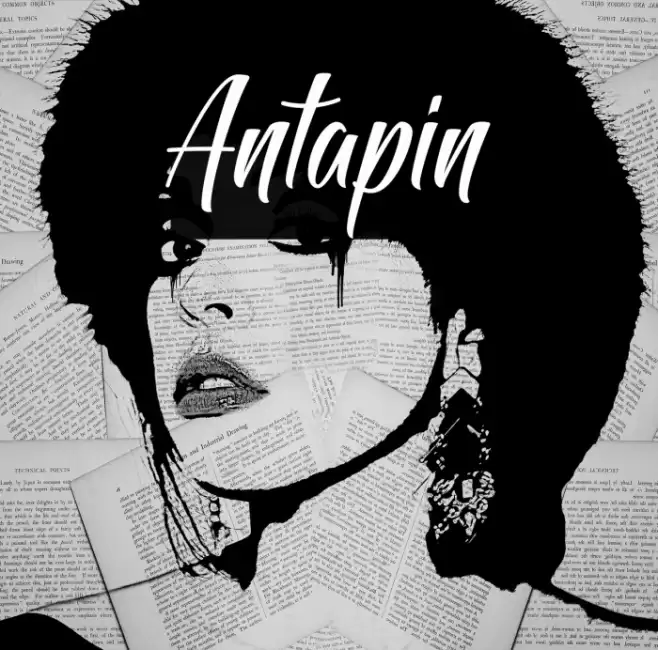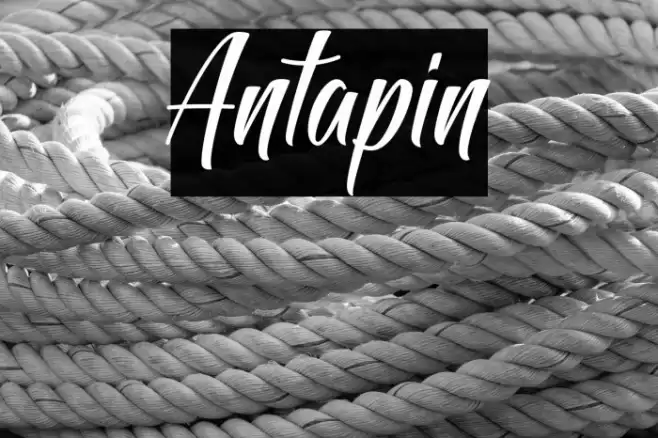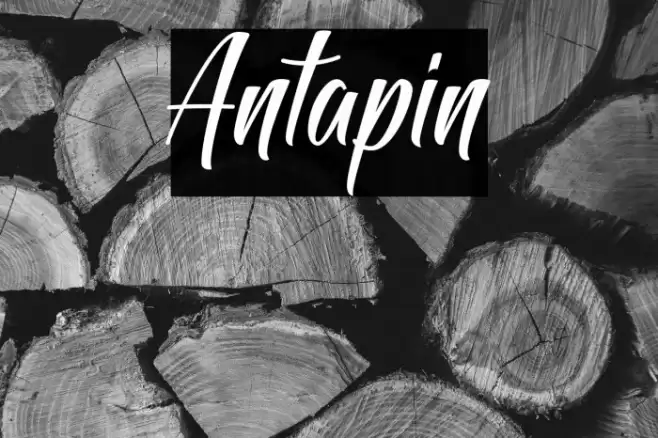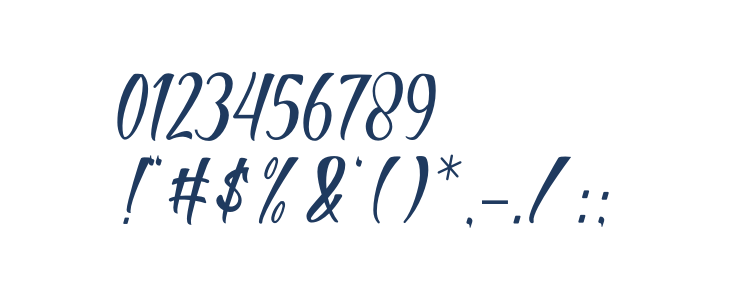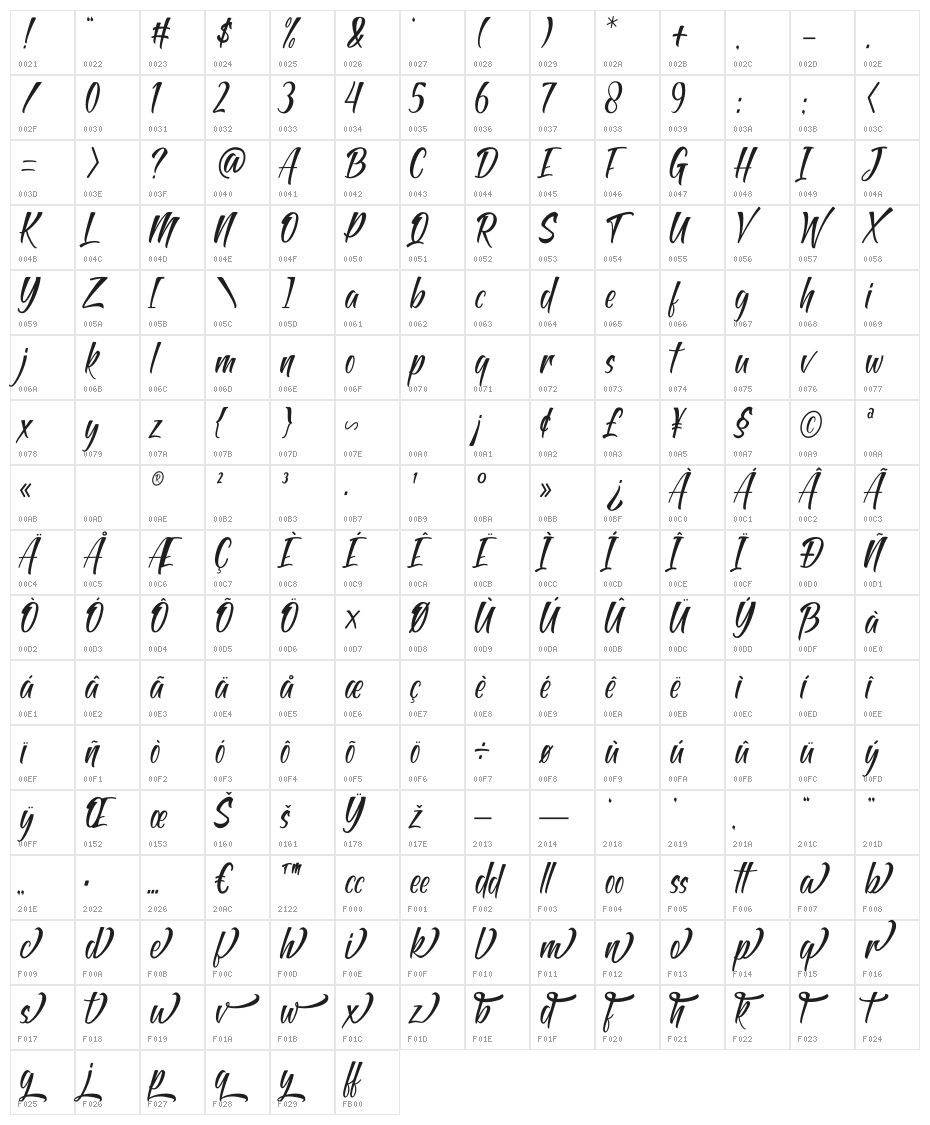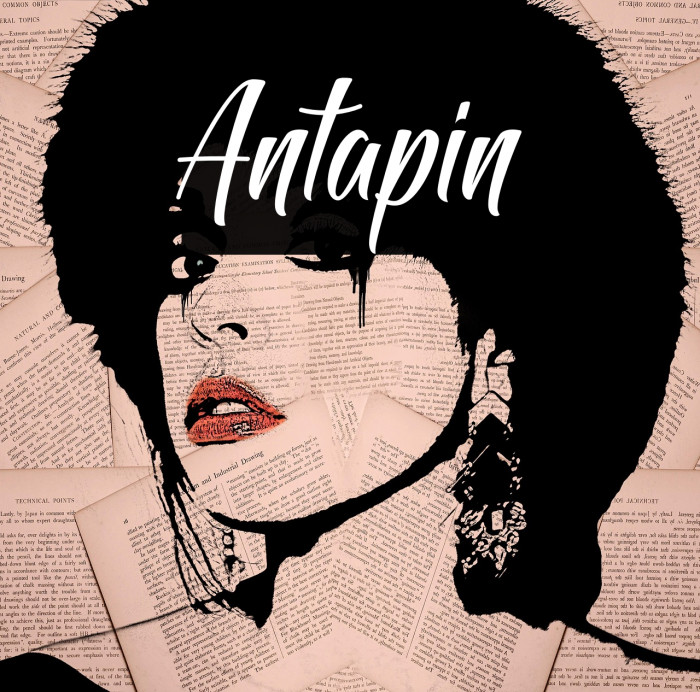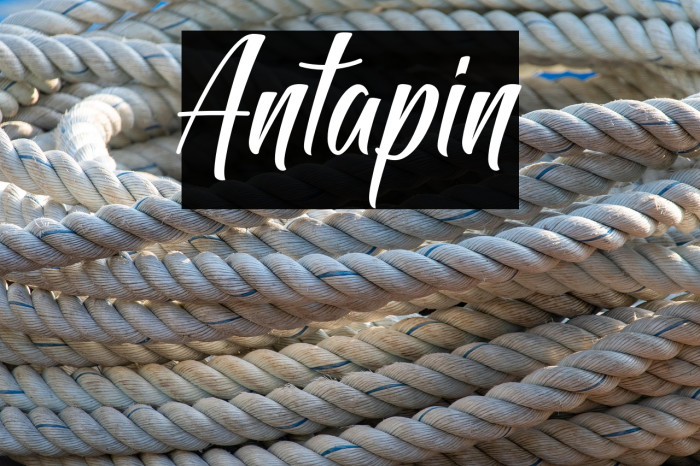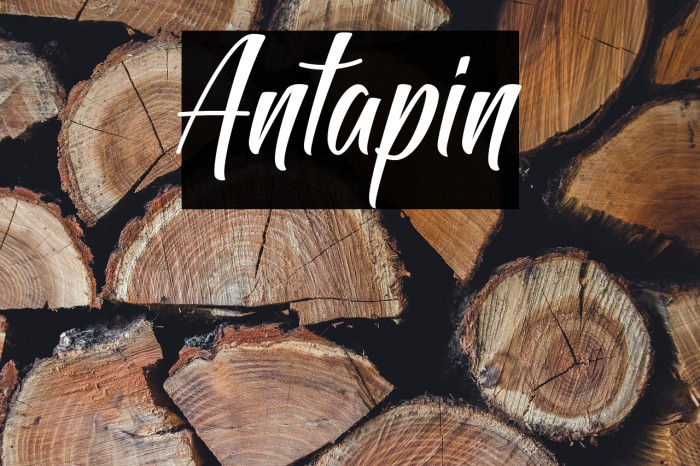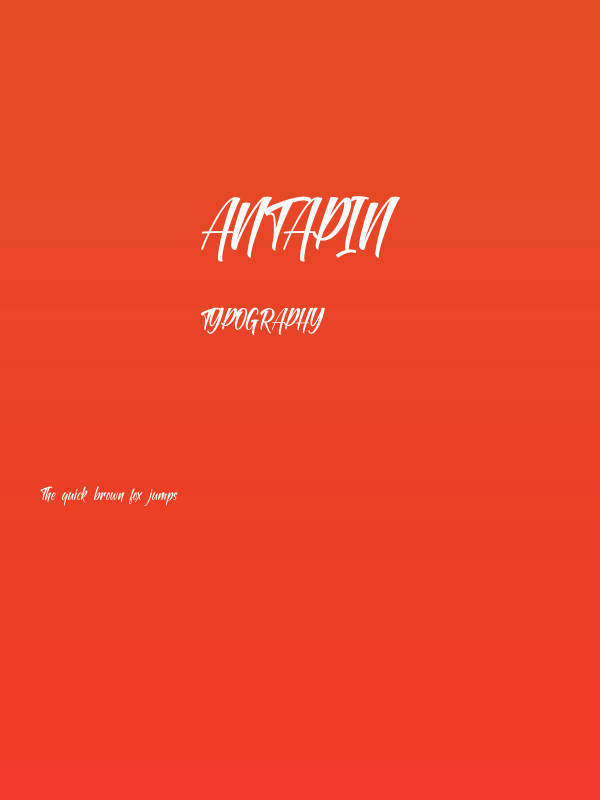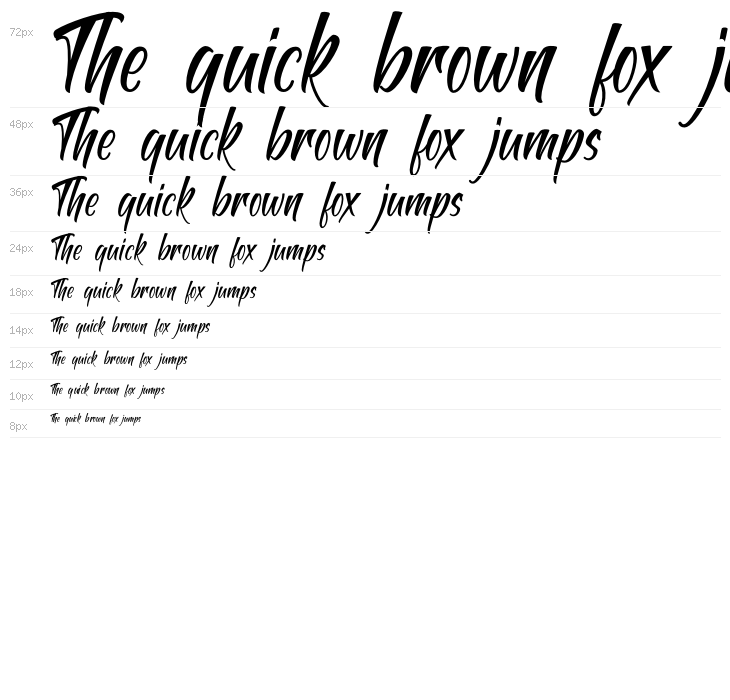
Antapin Font
Antapin Description
This font features a dynamic and expressive script style, characterized by its fluid and energetic strokes. The letters are slightly slanted, giving a sense of motion and elegance. The uppercase letters are bold and prominent, while the lowercase letters maintain a consistent flow, enhancing readability. The numerals and special characters are designed to complement the overall aesthetic, with a playful yet sophisticated touch. The font's design is suitable for projects that require a personal and artistic flair, making it ideal for creative branding and design work.
A dynamic and expressive script font with fluid, energetic strokes from Regular fonts.